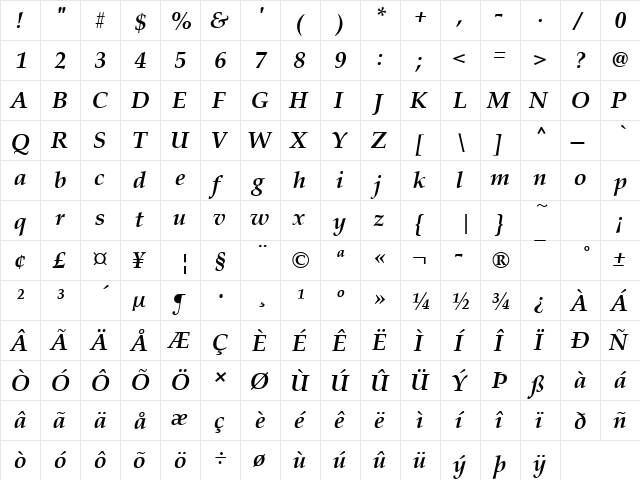
Palladius Bold Italic
Design Context for Palladius Typeface
Palladius takes a measured approach to typography — its balanced proportions and neutral character make it a reliable workhorse for both digital and print work. The slanted form adds forward momentum and visual energy. The heavy weight commands attention and anchors typographic hierarchies.
Pro Tip: Use Palladius for emphasis, pull quotes, and subheadings where its slanted energy can add rhythm to the layout.